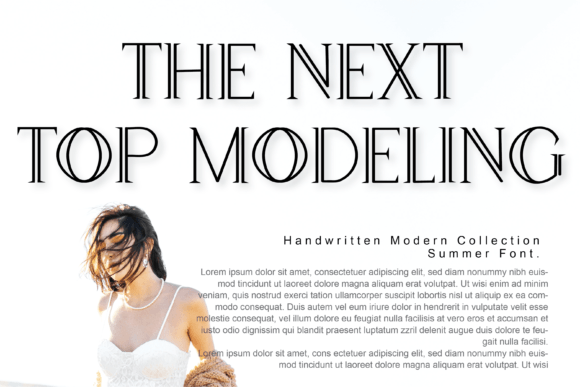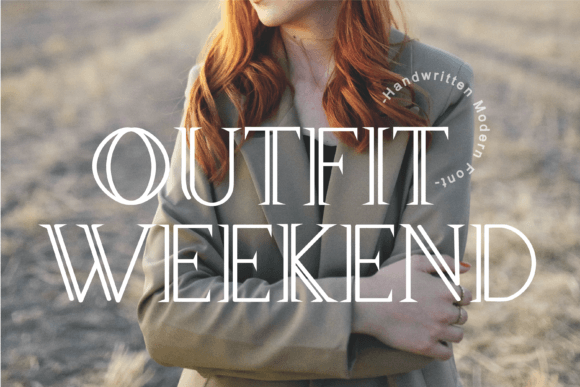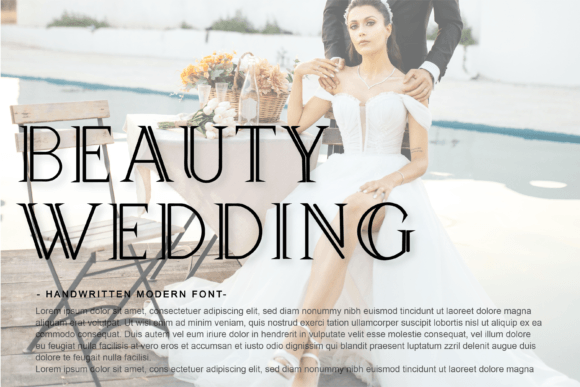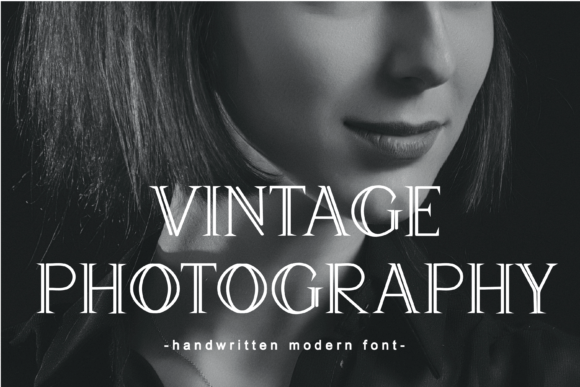
Catalina Font: Elevate Your Designs with a Modern, Beautiful, and Futuristic Touch
In the world of typography, fonts play a crucial role in bringing creative visions to life. For designers and crafters, finding the perfect font can be a daunting task, especially when it comes to creating visually stunning and cohesive designs. If you’re on the hunt for a font that exudes modernity, beauty, and futurism, look no further than the Catalina Font. This cool serif font is making waves in the design community, and for good reason. In this article, we’ll dive into the world of Catalina Font, exploring its features, uses, and benefits, as well as provide tips on how to incorporate it into your creative projects.
What is Catalina Font?
Catalina Font is a serif font that boasts a unique blend of modernity and sophistication. Its sleek lines, elegant curves, and futuristic feel make it an ideal choice for designers looking to add a touch of innovation to their work. Whether you’re creating brand names, wedding invitations, or any other design project, Catalina Font is sure to impress. Its versatility and adaptability make it a valuable addition to any designer’s toolkit.
Key Features of Catalina Font
• Modern and Futuristic Design: Catalina Font’s sleek and streamlined design gives it a distinctly modern and futuristic feel, perfect for brands and designs looking to make a statement.
• Serif Details: The subtle serif details add a touch of elegance and sophistication, making it suitable for a wide range of design applications.
• High Versatility: Catalina Font can be used for various design projects, from branding and advertising to wedding invitations and packaging.
• Easy to Read: Despite its modern and futuristic design, Catalina Font remains highly legible, making it perfect for body text and headlines.
Uses of Catalina Font
Catalina Font’s versatility makes it an excellent choice for a wide range of design applications. Here are some of the most popular uses of this stunning font:
• Branding and Logos: Create a lasting impression with Catalina Font’s modern and futuristic design, perfect for tech startups, fashion brands, and innovative companies.
• Wedding Invitations: Add a touch of elegance and sophistication to your wedding invitations, save-the-dates, and other stationery with Catalina Font’s beautiful serif details.
• Advertising and Marketing: Make your ads and marketing materials stand out with Catalina Font’s sleek and modern design, perfect for grabbing attention and conveying innovation.
• Packaging Design: Elevate your packaging design with Catalina Font’s futuristic feel, ideal for product labels, packaging, and point-of-purchase displays.
Tips for Using Catalina Font
To get the most out of Catalina Font, here are some tips to keep in mind:
• Experiment with Font Sizes: Catalina Font’s legibility and versatility make it suitable for a wide range of font sizes, from small body text to large headlines.
• Pair with Other Fonts: Combine Catalina Font with other fonts to create a unique and visually appealing typography scheme.
• Play with Colors: Take advantage of Catalina Font’s modern and futuristic design by pairing it with bold and bright colors.
Catalina Font is a game-changer for designers and crafters looking to elevate their designs with a modern, beautiful, and futuristic touch. Its versatility, adaptability, and stunning design make it an excellent choice for a wide range of design applications. Whether you’re creating brand names, wedding invitations, or any other design project, Catalina Font is sure to impress. So why wait? Immediately add this font to your creative ideas and see how your projects become a reality.
In conclusion, Catalina Font is a must-have font for any designer or crafter looking to stay ahead of the curve. Its unique blend of modernity, beauty, and futurism makes it an invaluable addition to any designer’s toolkit. So go ahead, give Catalina Font a try, and experience the power of stunning typography for yourself.